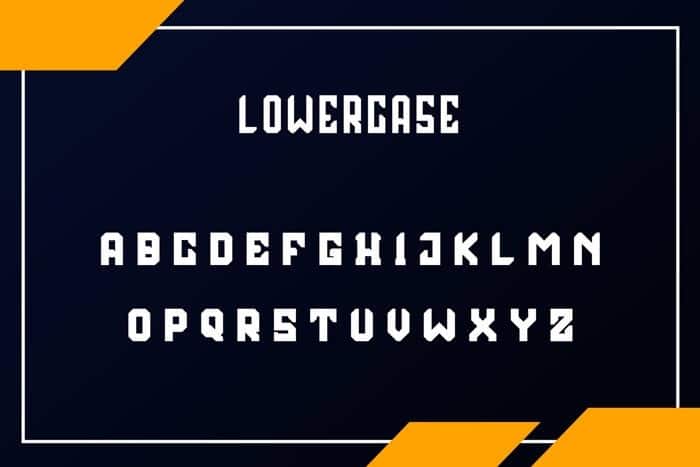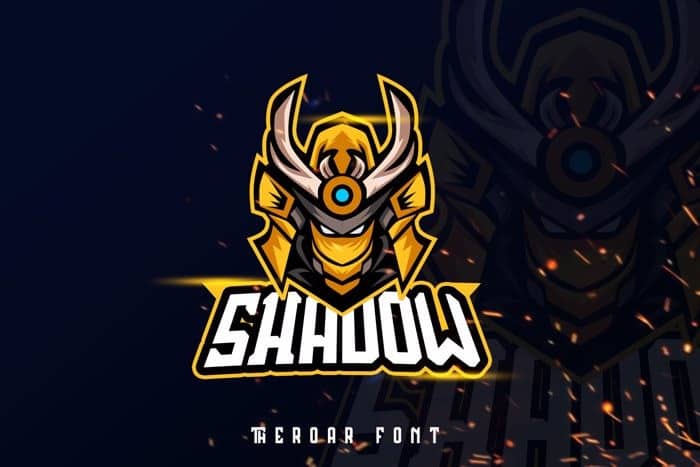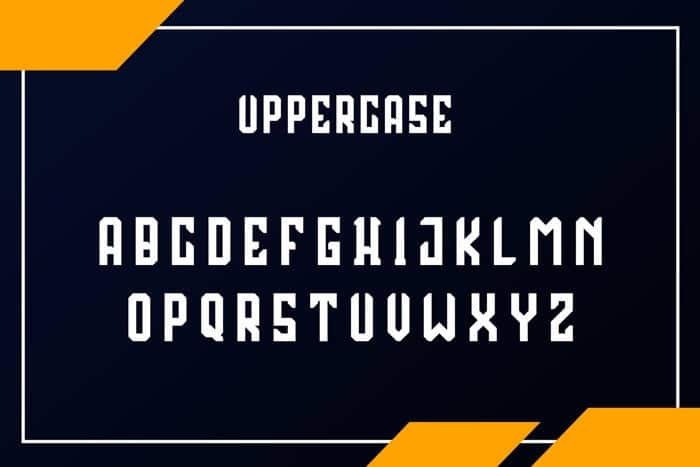
Theroar Display Font is a new display font with two styles. Made from font designer named Rantautype. This font is playful, and perfect for menus, merchandise, headlines, block quotes, and creative projects. It’s vintage but futuristic. Various alternates and special characters make this font a great addition to your creative toolkit.